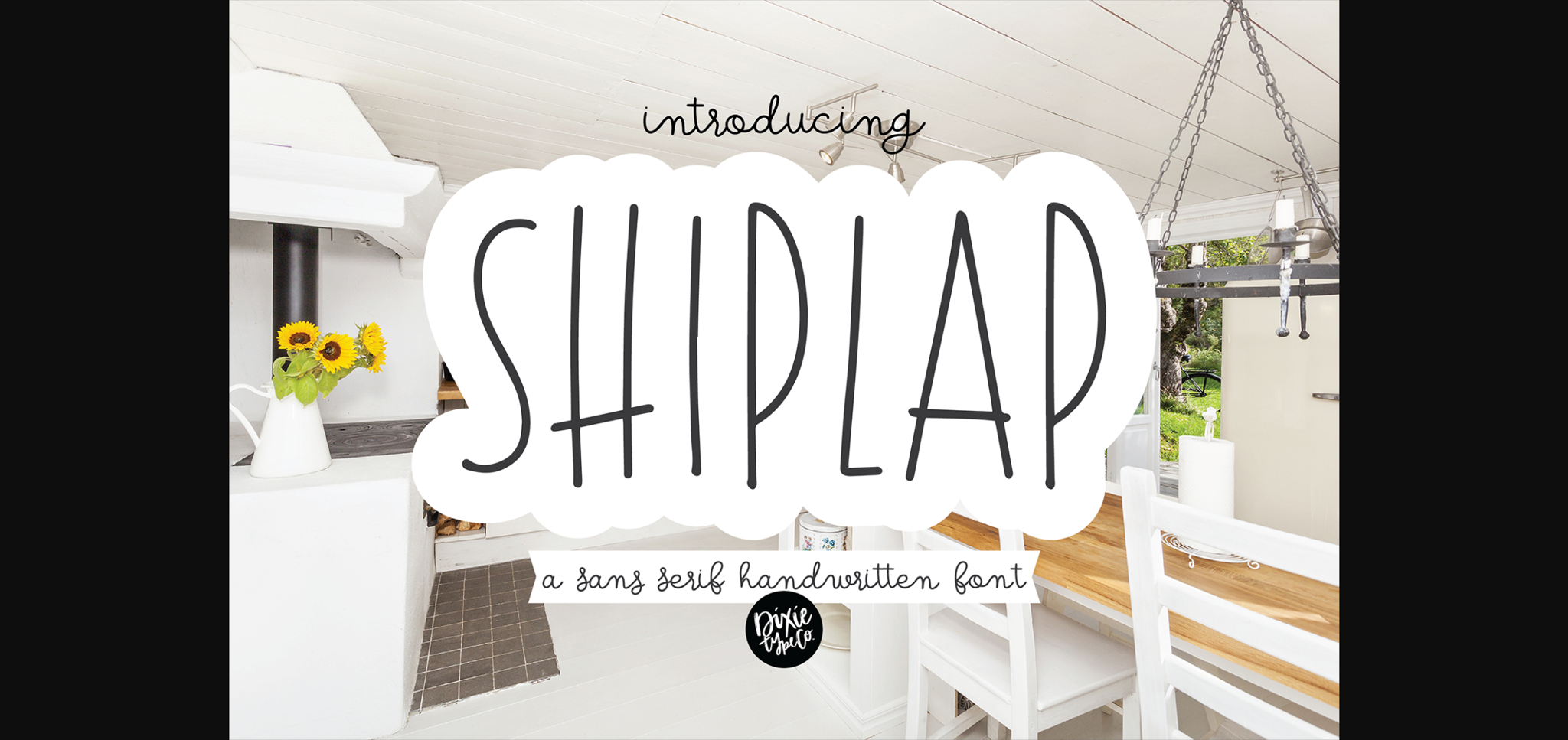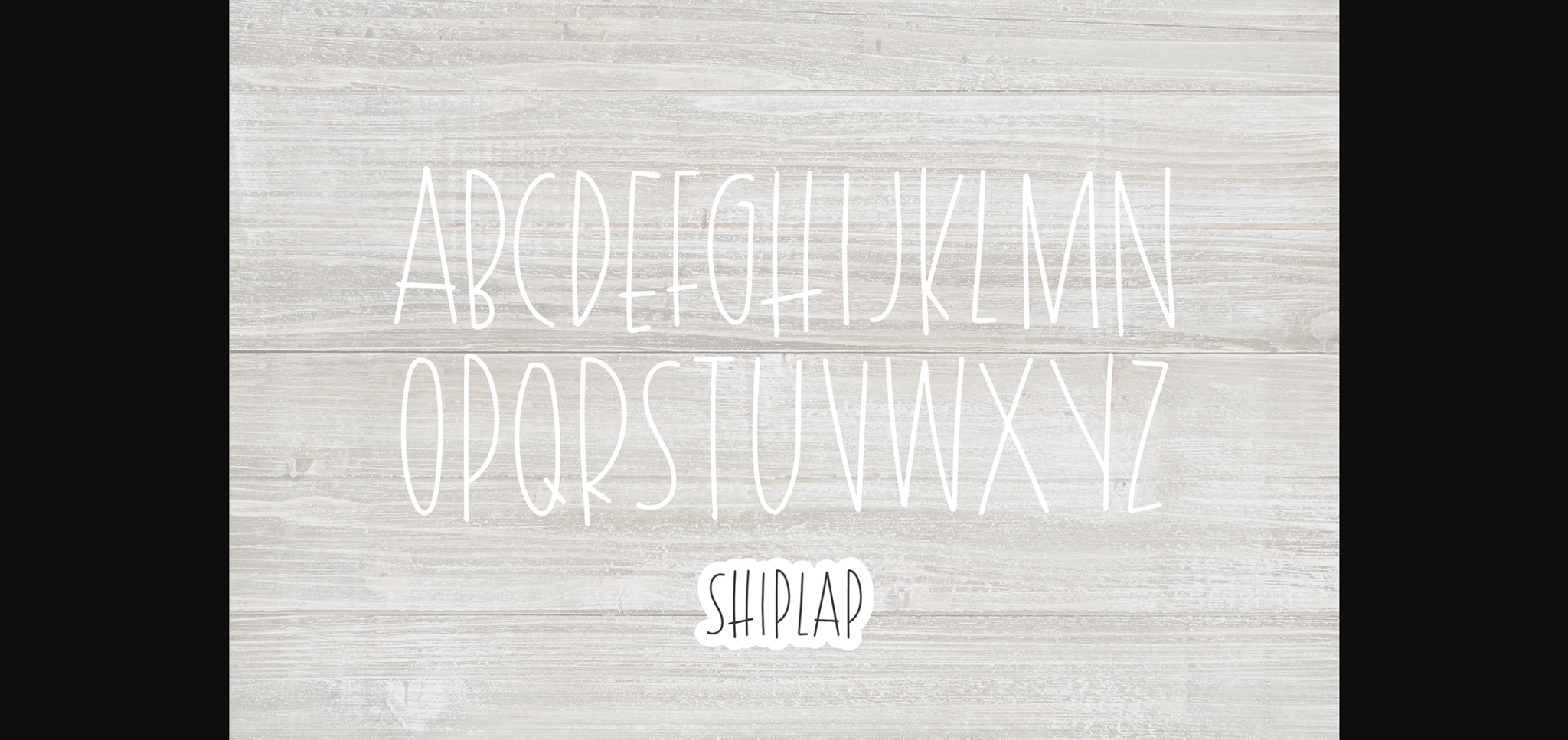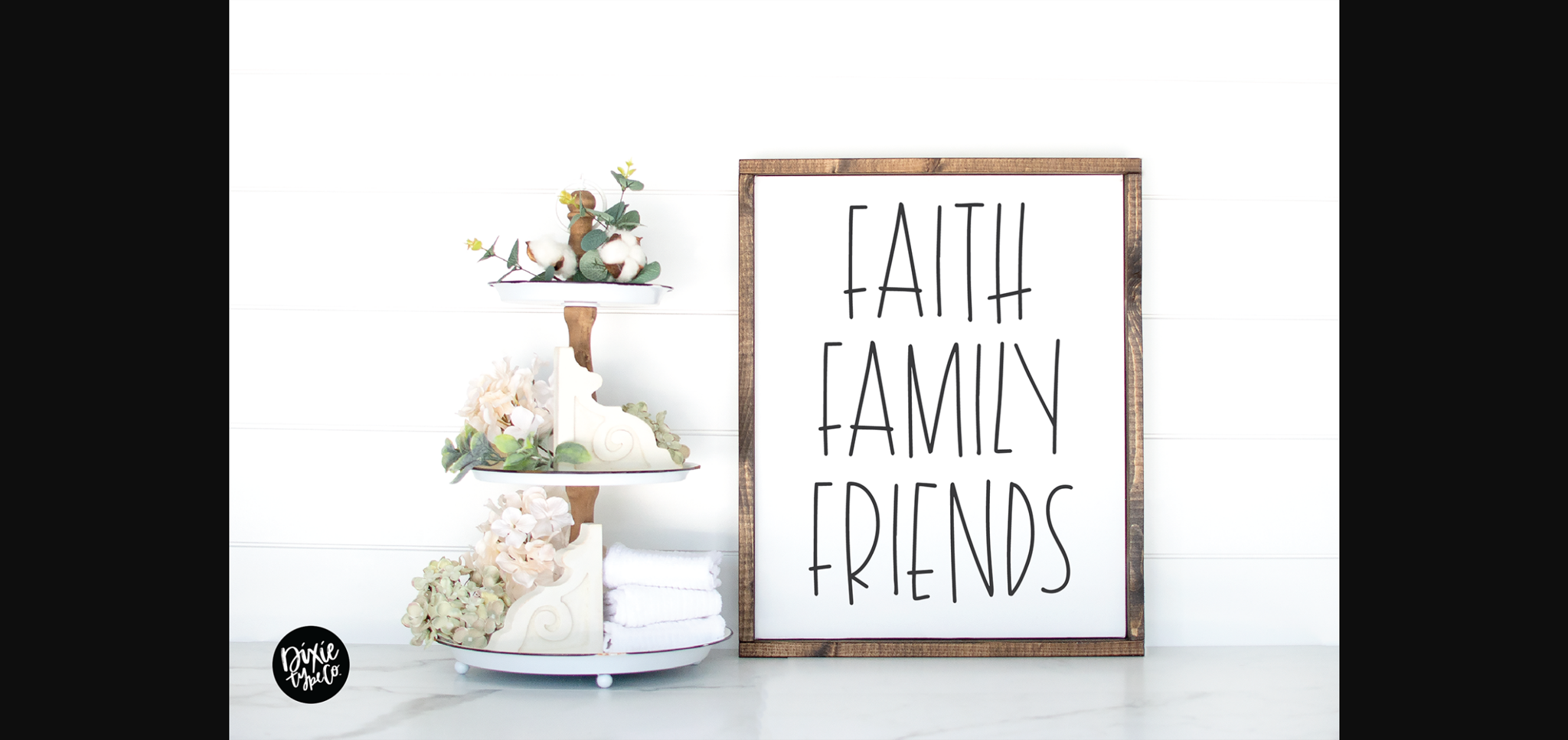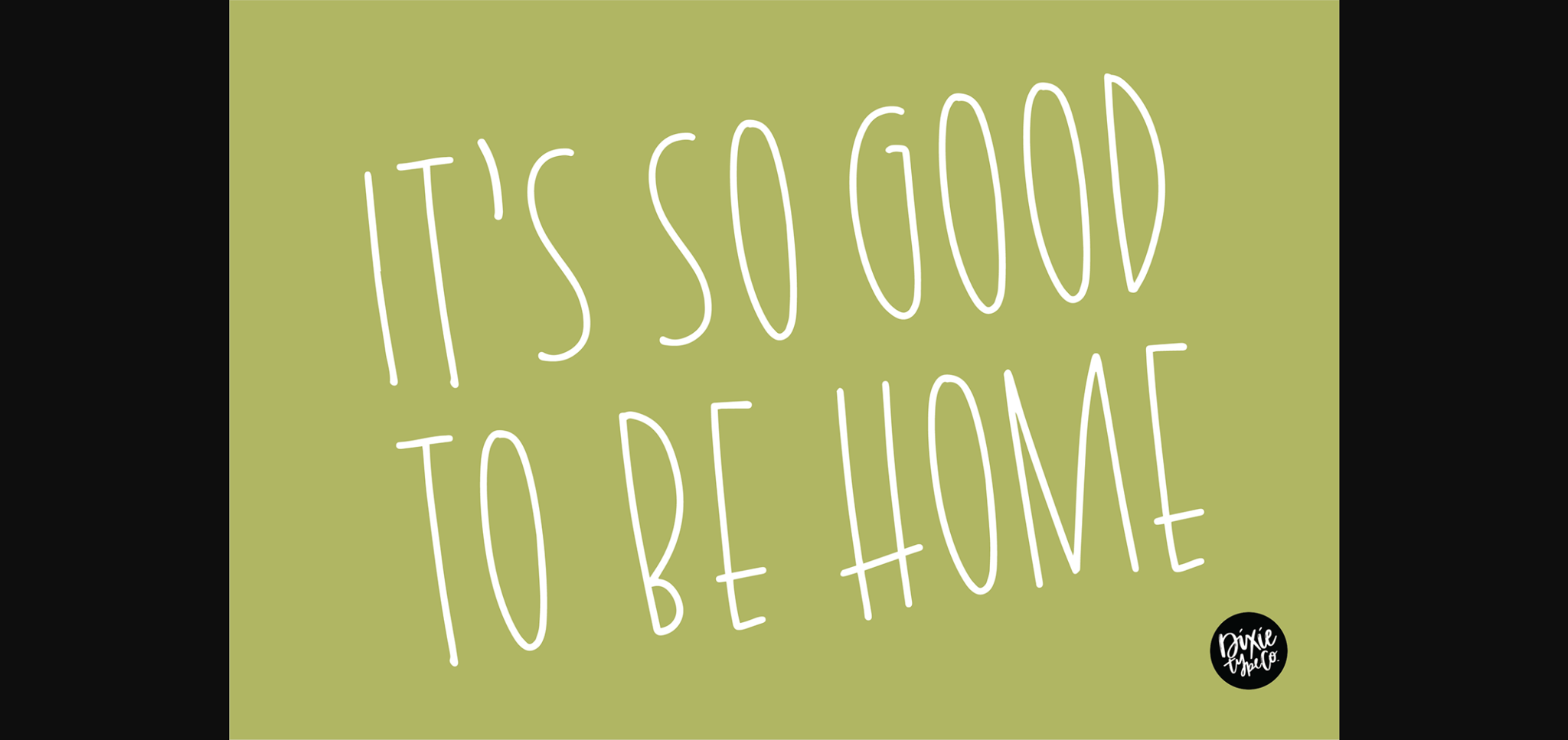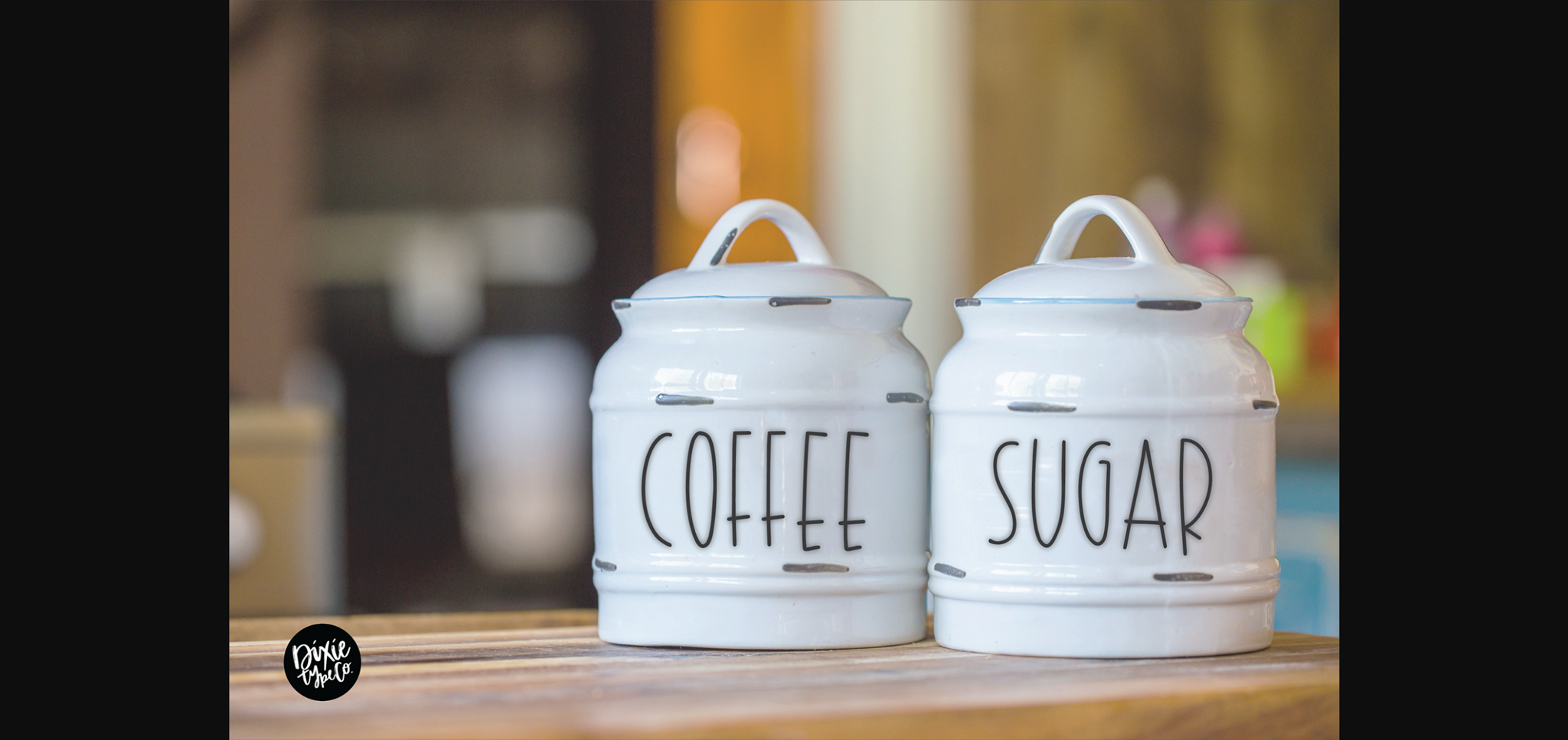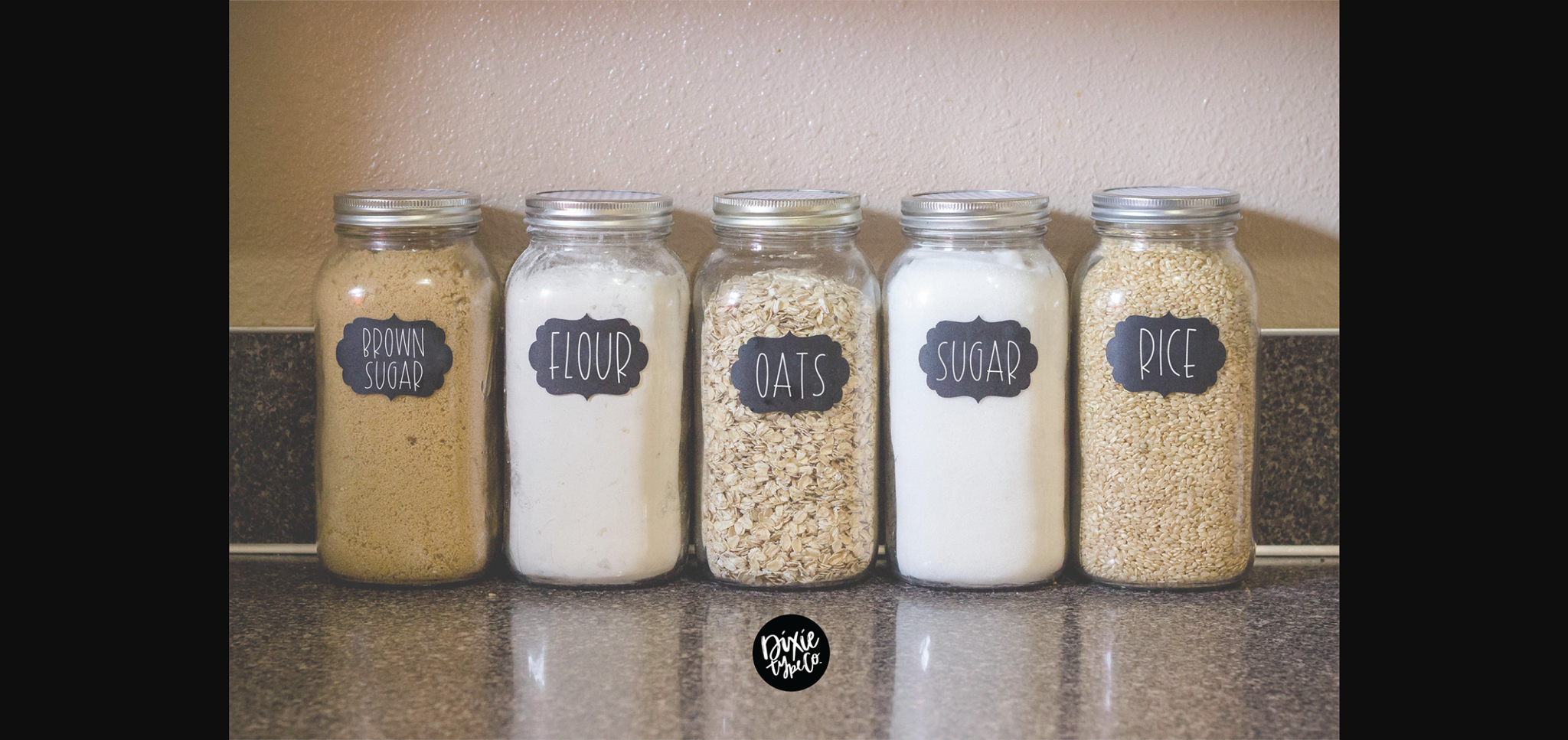
HomeSans Serif FontsShiplap Font Sans Serif Fonts Shiplap Font FacebookTwitterPinterestWhatsApp 1 of 8 ... Shiplap Font Poster 2... Shiplap Font Poster 3... Shiplap Font Poster 4... Shiplap Font Poster 5... Shiplap Font Poster 6... Shiplap Font Poster 7... Shiplap Font Poster 8... About Shiplap Font Shiplap is a cute and casual sans serif font with an undeniably clean feel. With its neat and beautiful arrangement of letters, this typeface will look outstanding in both formal and non-formal designs. DOWNLOAD NOW 167 0 People also explored Genora Font Boverley Font Besto Fren Hello Christmas Font Glitter Candy Sunflowers Font Strawberry Dreams Font Botfon Font Central Inline Virgina Font Makeup Hacks Font Spirly Monogram Font TagsShiplapShiplap Font Previous articleBlockthin FontNext articleDesolation Font LEAVE A REPLY Cancel reply Comment: Please enter your comment! Name:* Please enter your name here Email:* You have entered an incorrect email address! Please enter your email address here Website: Save my name, email, and website in this browser for the next time I comment. Unlock Endless Creativity with the FREE September Clipart Huge Bundle (Valued at $700!) Personal Use Free Drip October Font Personal Use Free Read more Sushi Day Personal Use Free Read more Rollayka Personal Use Free Read more Oatmeal Personal Use Free Read more BLOG Using Fonts in Digital Marketing: Tips to Strengthen Your Brand Identity In the realm of digital marketing, every visual element plays a crucial role in shaping a brand's identity, and fonts are no exception. The... Free Fonts Risk: Why Free Fonts Can Be Dangerous for Designers Exploring Font Trends Top 7 Google Fonts Alternatives for Faster and Privacy-Friendly Web Design (2025)